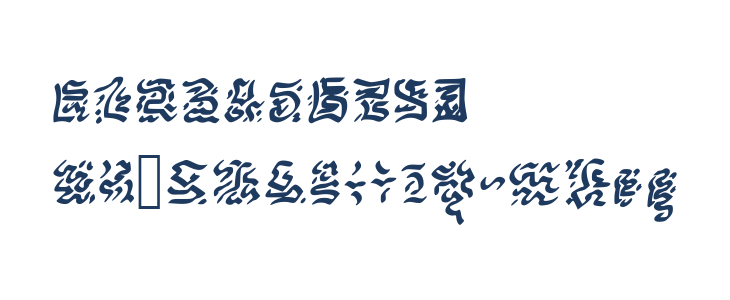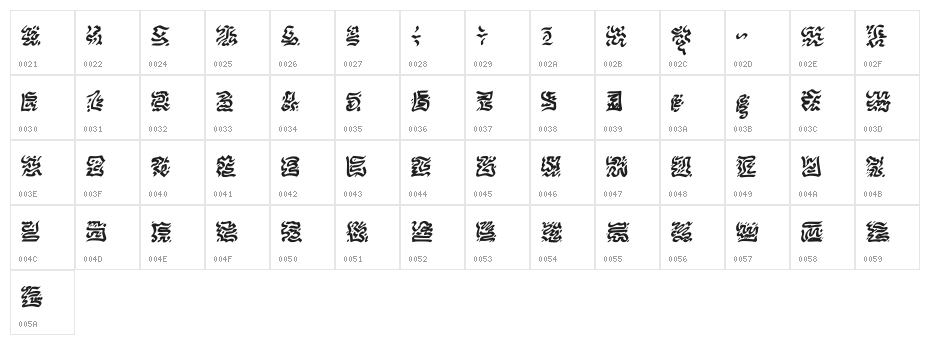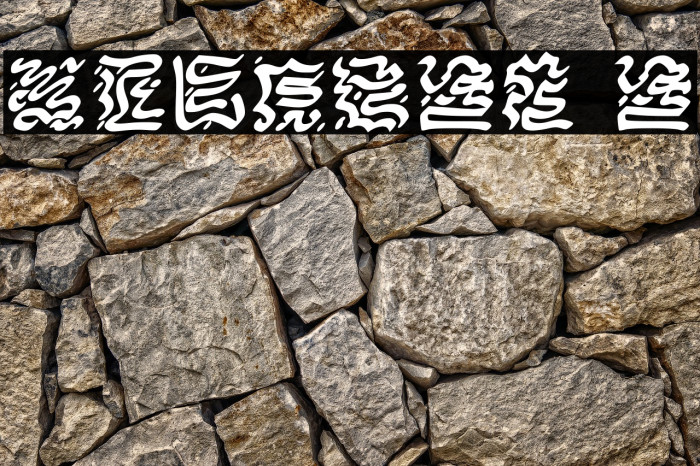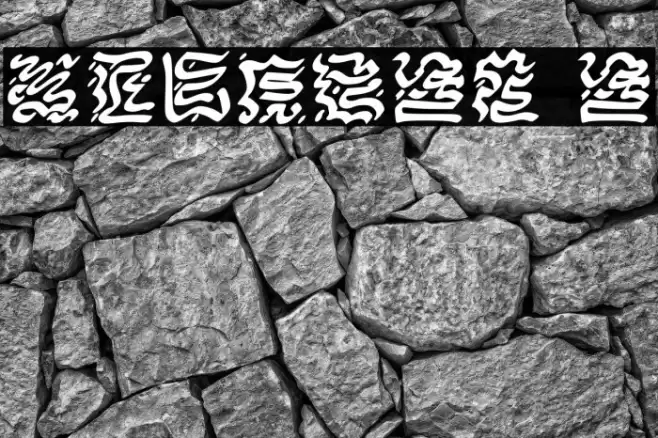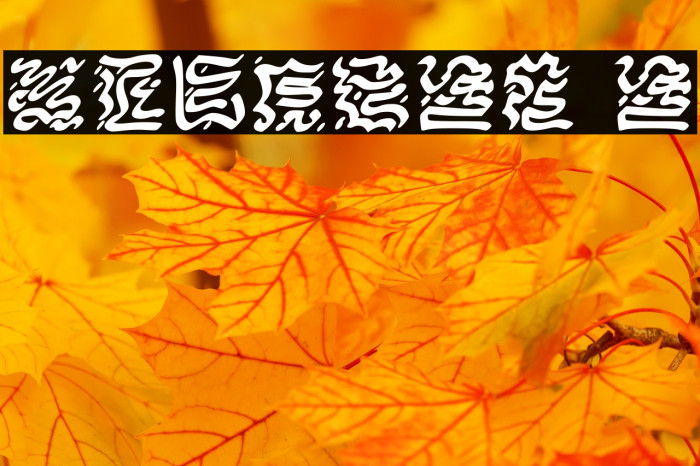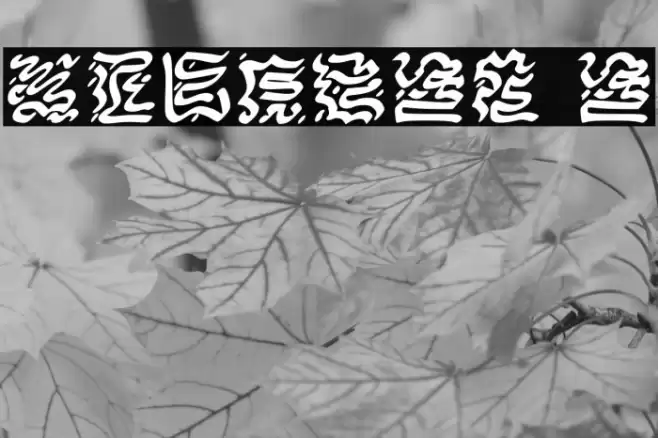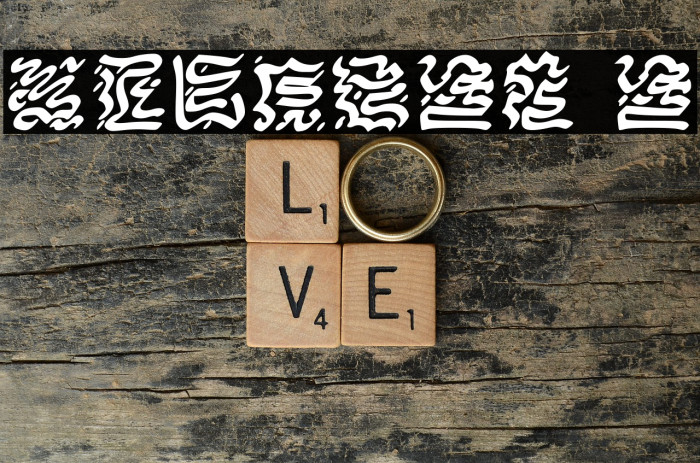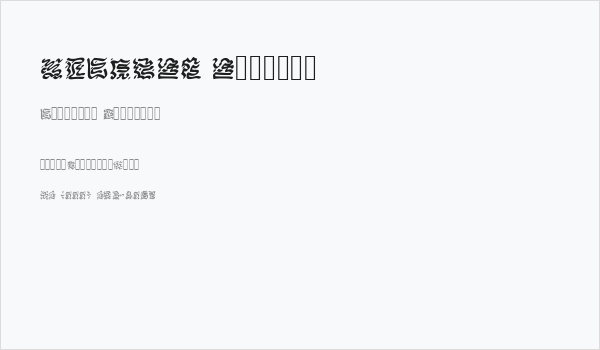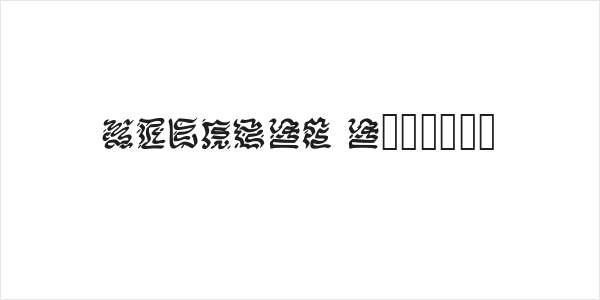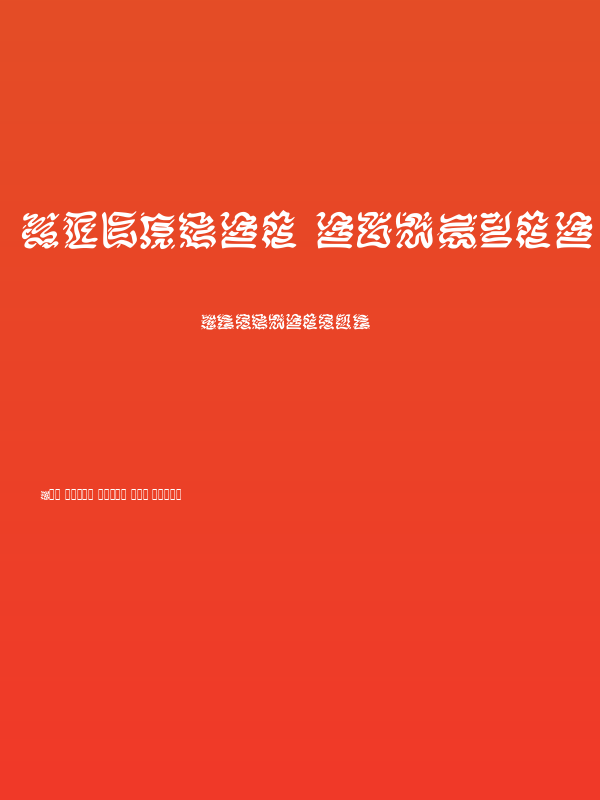
VICNORA Regular Font
This font features a highly decorative and intricate design, reminiscent of ancient scripts or calligraphy. The characters are bold and complex, with swirling patterns and thick strokes that create a sense of movement and energy. Each letter is uniquely crafted, making it stand out with a distinct artistic flair. The font's overall appearance is both striking and enigmatic, suitable for projects that require a touch of mystery or historical depth. Its elaborate style may not be ideal for body text but excels in creating impactful headlines or artistic logos.
| Proposed Projects | Ideal for artistic logos, historical themed designs, or decorative headlines. |